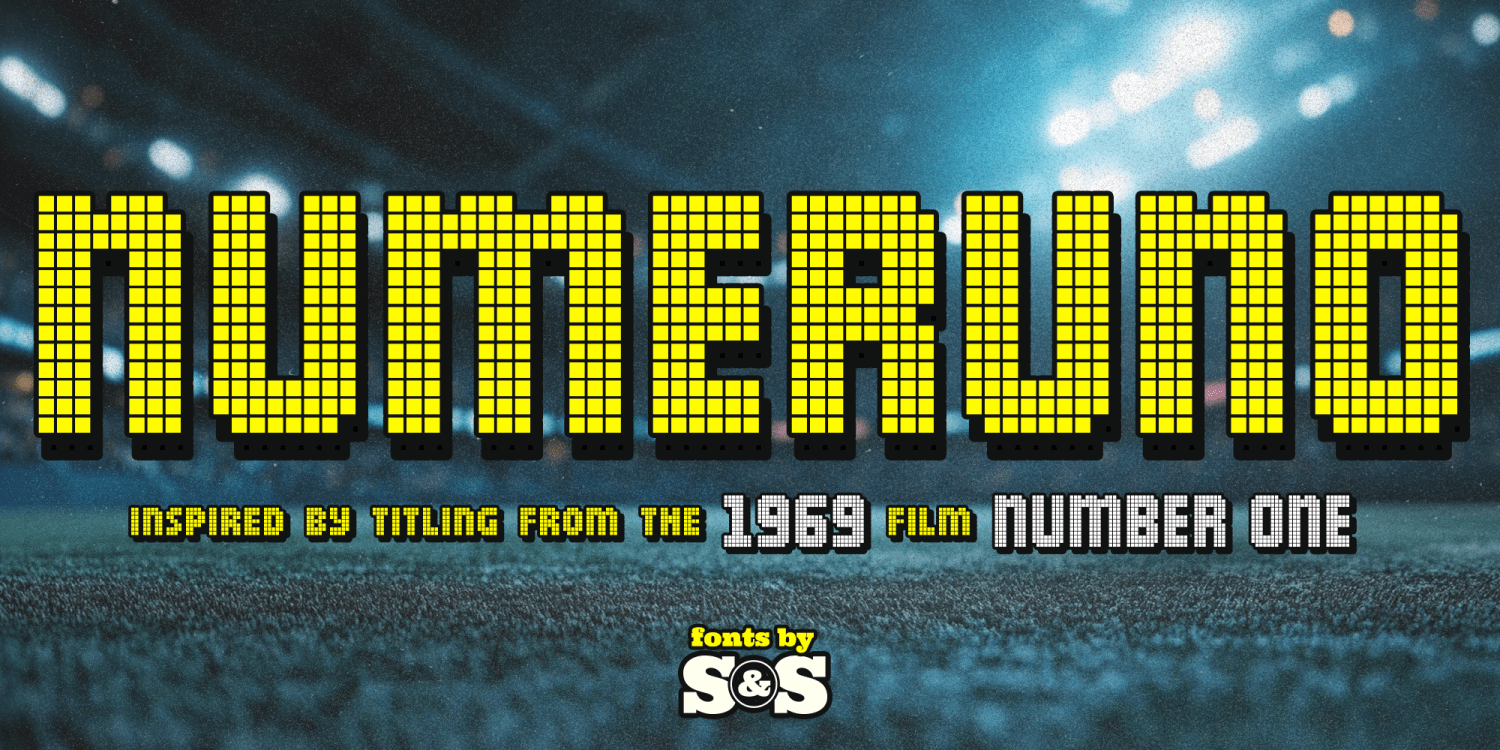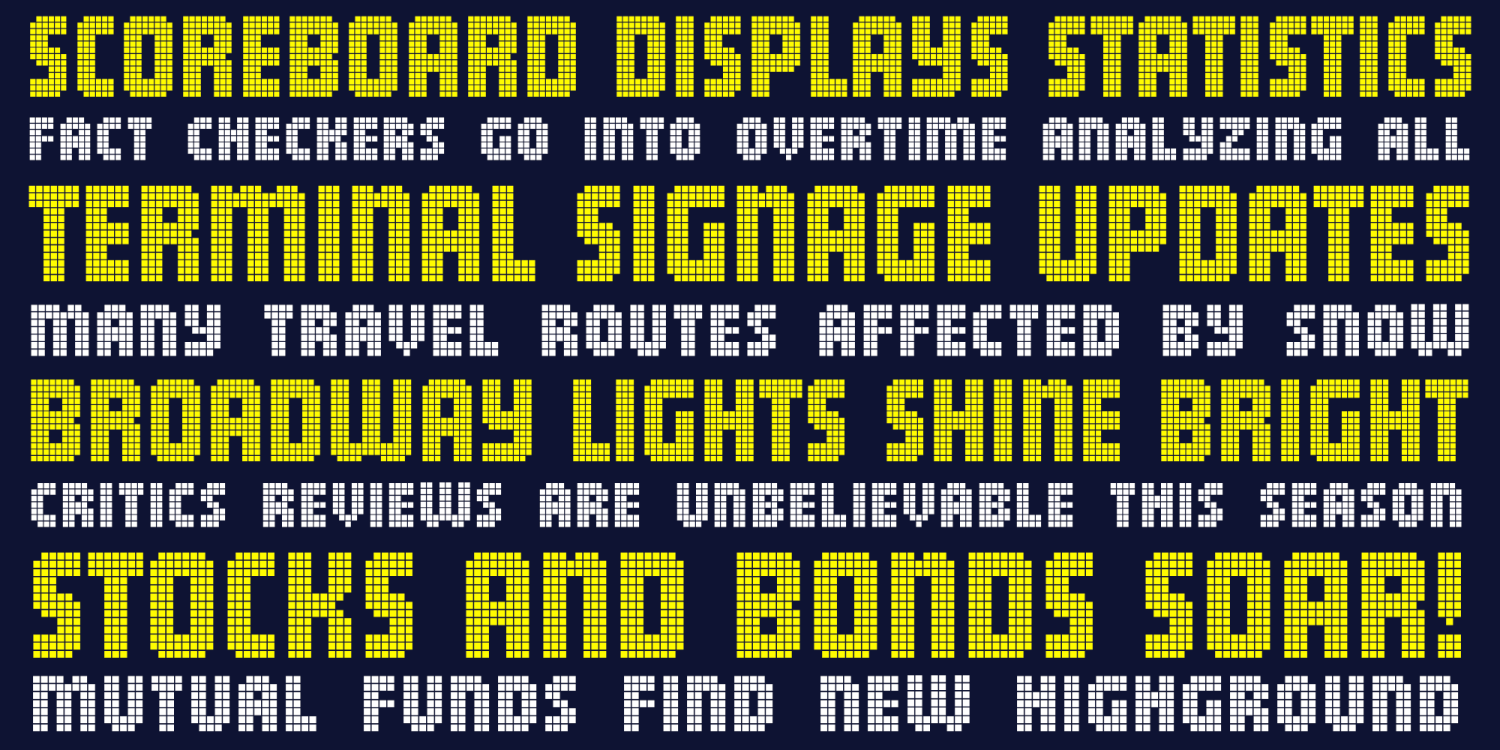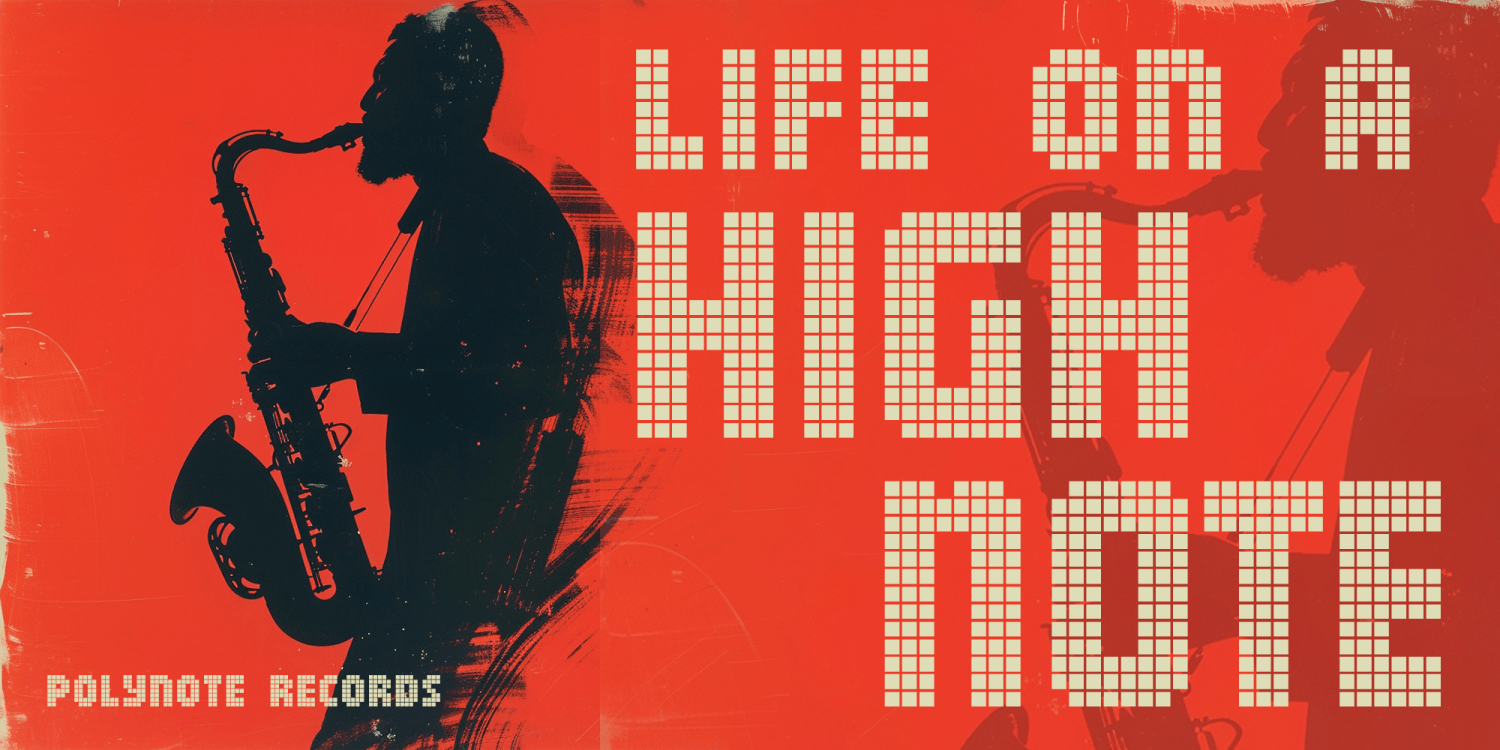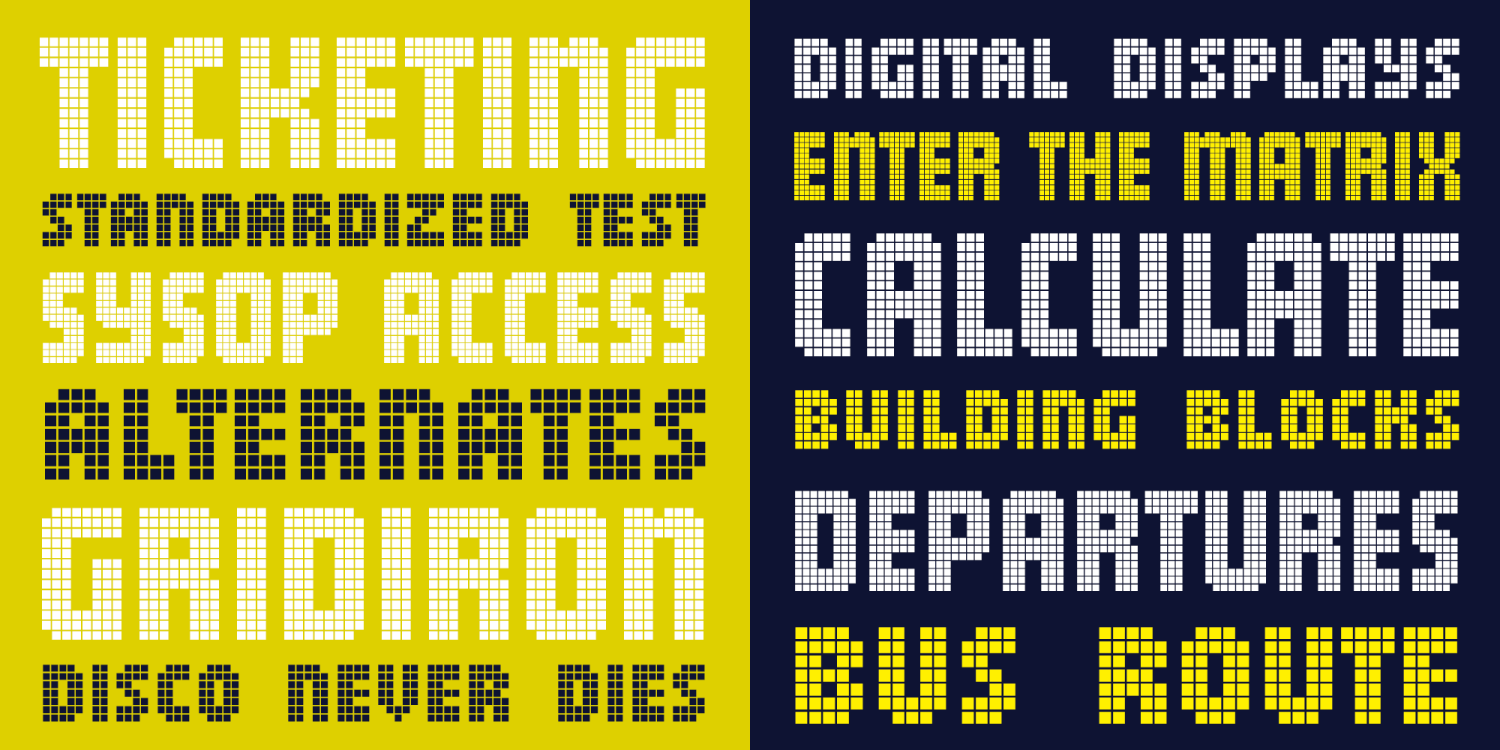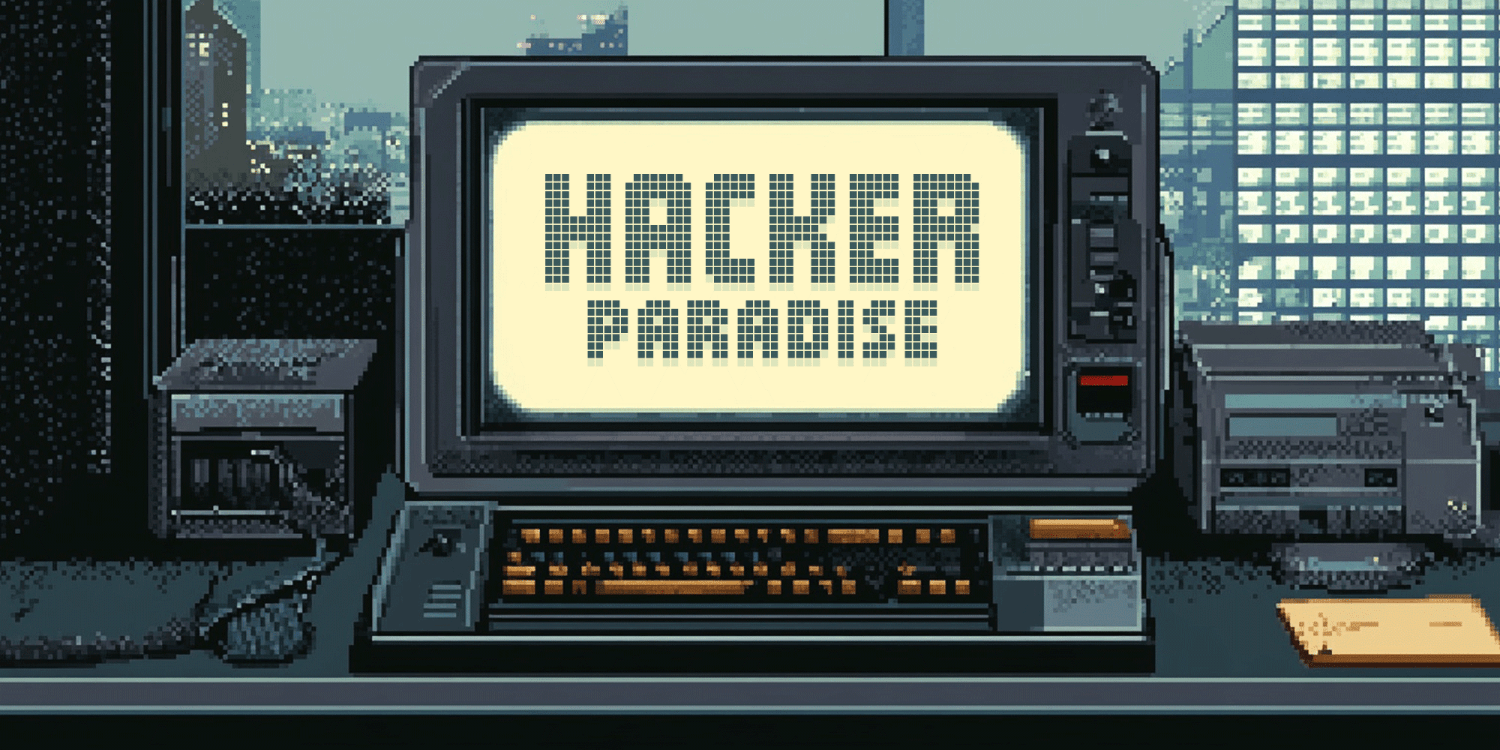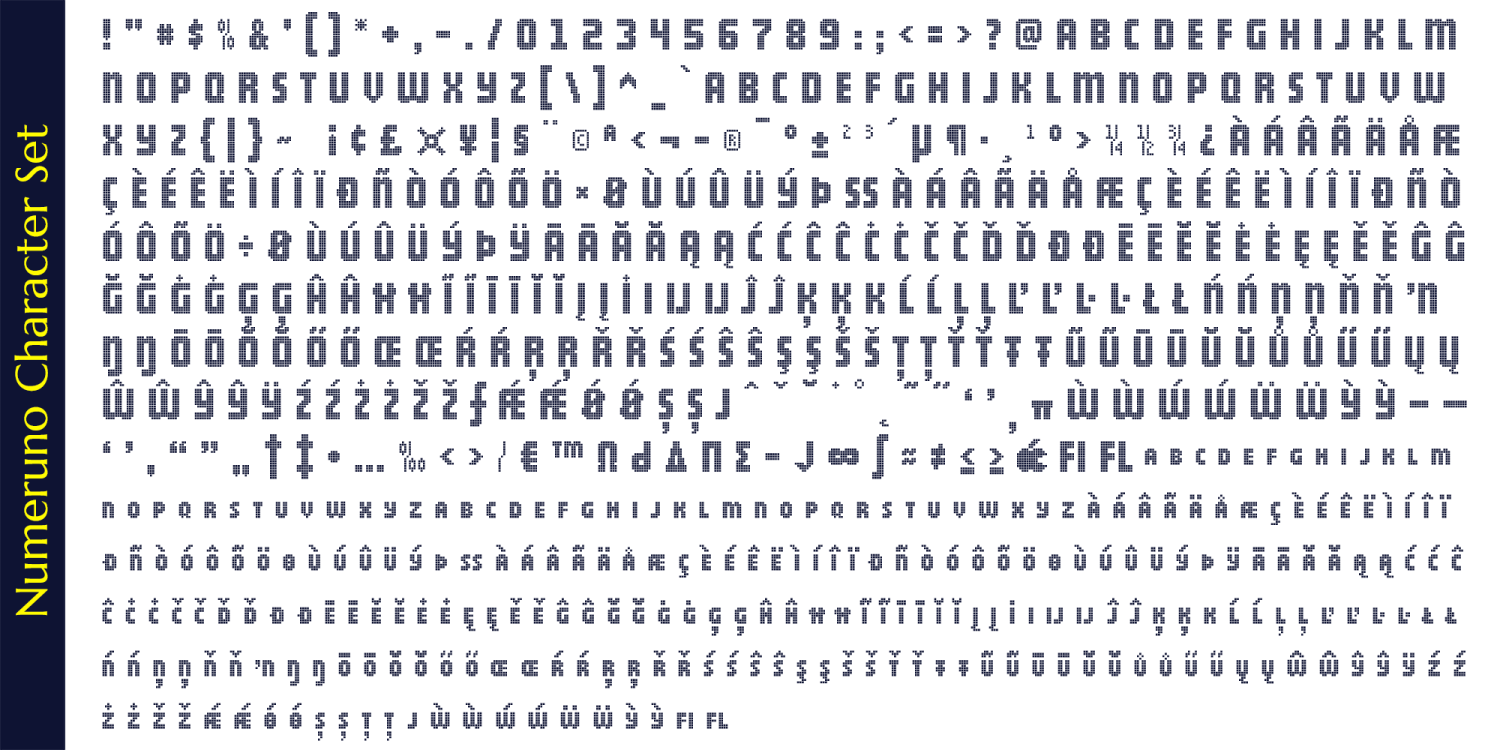
Numeruno
Font Family by Stiggy & Sands
Numeruno is a digital matrix display sans that was inspired by screencaptures of a titling sequence for the 1969 film "Number One" featuring Charlton Heston. The titling sequence featured two scales of grid matrix based digital lettering, so we included the smaller squat scale caps as Stylistic Alternates using the same grid matrix.
Approx. 640 Character Glyph Set: Numeruno comes with a glyphset that includes standard & punctuation, international language support, and Stylistic Alternates.
OpenType features include:
• Standard typesetting character set.
• Stylistic Alternates squat Capitals sets.